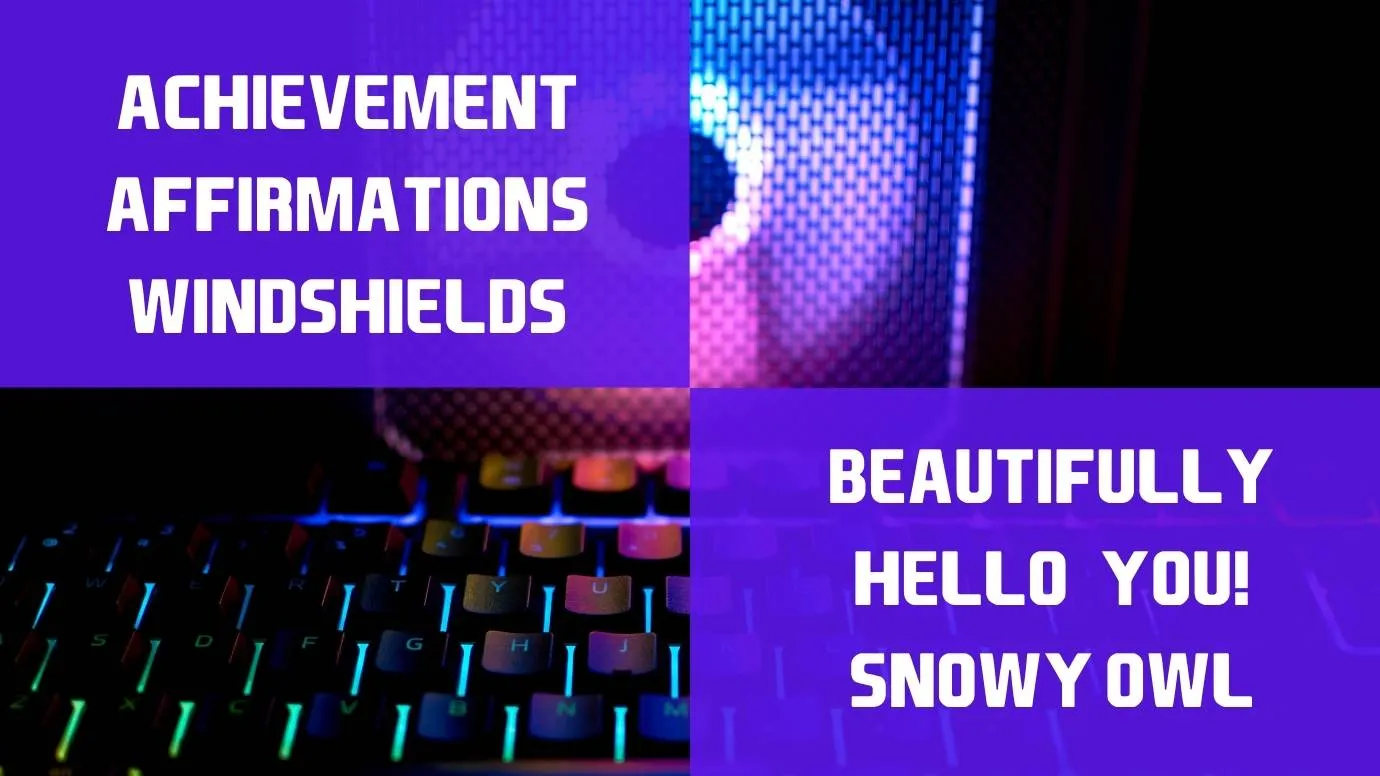
EA Sports Font is a sans-serif typeface that is used for the headlines and text in video game franchise. It is available in three weights: light, regular, and bold. It is also available in two styles: normal and italic.
This font consists of 654 characters including upper and lower alphabets, numbers, and special characters. It also contains a set of 39 glyphs. This font is similar to the Tesla font. It is used in logos, titles, and covers.
Designer of EA Sports Font
This lovely font was designed by American typeface and lettering artist David Berlow for The Font Bureau in 1999.
This font style is designed with a unique and consistent style. This gorgeous style is a mixture of plenty of features, including glyphs, digits, capital alphabets, a small alphabet, punctuations, symbols, special characters, and a large number of language support.
View of EA Sports Font